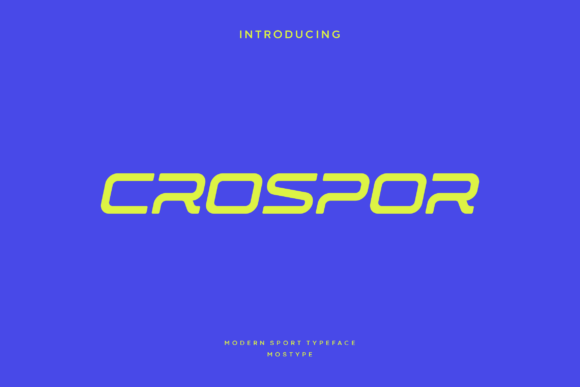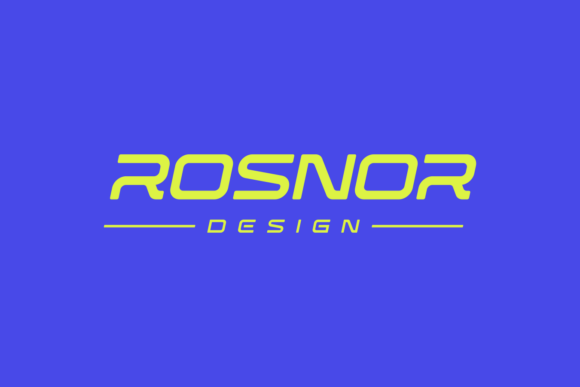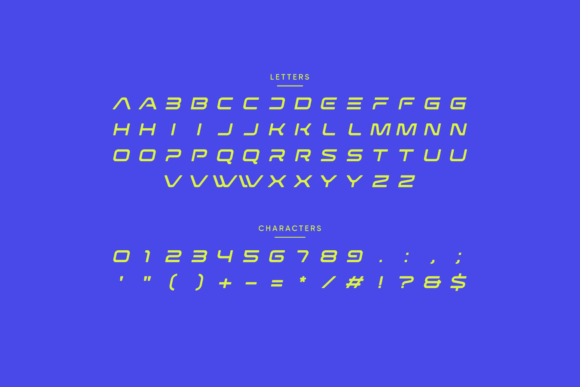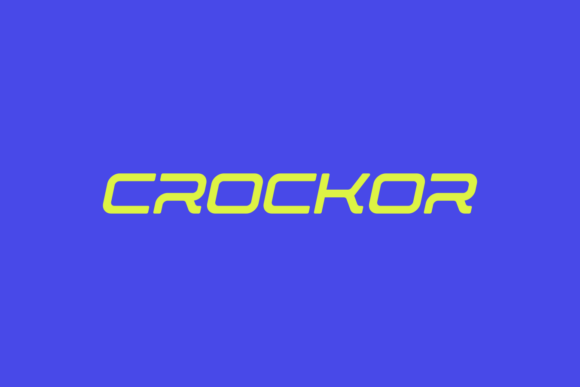
The Perfect Serve: Unlocking the Power of Crospor Font
As designers, we’ve all been there – staring at a blank canvas, trying to conjure up the perfect combination of style and sophistication. It’s the moment when a font can make all the difference. For sports enthusiasts and branding aficionados, this moment is especially crucial. That’s where the Crospor Font comes in – a modern display font designed specifically to elevate your sports branding game.
This sleek and minimalist font boasts a sophisticated, elegant, and fresh all-caps design that adds a bold and memorable touch to your designs. Whether you’re creating logos, posters, or digital ads, the Crospor Font is the perfect choice to make your brand stand out. With its timeless appeal, this font is a valuable asset for any designer looking to take their work to the next level.
- Unique Characteristics: The font’s distinctive blend of modern and vintage elements gives it a unique aesthetic, making it perfect for designs that require a touch of elegance and sophistication.
Crospor Font Review
I’ve had the chance to work with Crospor Font, and overall, I’m quite pleased with its performance. Here are some of the things that really stood out to me:
- ✨ Beautiful, modern aesthetic: The font’s clean lines and sleek design make it perfect for creating a contemporary feel in any project.
- ✨ High versatility: From headers to body text, Crospor Font adapts well to various font sizes and styles.
- ✨ Easy to read: The font’s legibility is excellent, making it suitable for both digital and print applications.
- ⚠️ Limited language support: Unfortunately, Crospor Font doesn’t offer comprehensive language support, which may be a concern for projects requiring text in multiple languages.
- ⚠️ Not ideal for small text: While the font looks great at larger sizes, it can become difficult to read when scaled down.
Overall, I think Crospor Font is a solid choice for designers looking to add a touch of modernity to their projects. While it may not be perfect, its strengths make it a valuable addition to any design toolbox.
Crospor Font is ideal for:
- Creative projects (e.g., graphics, posters, social media posts)
- Branding and marketing materials (e.g., logos, business cards, brochures)
- Editorial and publishing content (e.g., articles, ebooks, magazines)
Alternatives to Crospor Font for Designers
Crospor Font is a modern sans-serif font known for its clean lines and high legibility. However, sometimes designers may need alternatives for specific projects or styles. Here are a few options:
Montserrat is a popular sans-serif font designed by Julieta Ulanovsky. It’s highly legible and features geometric shapes. Montserrat is ideal for use in digital products, websites, and mobile apps. Compared to Crospor Font, Montserrat has a more geometric feel and is better suited for modern and tech-related projects.